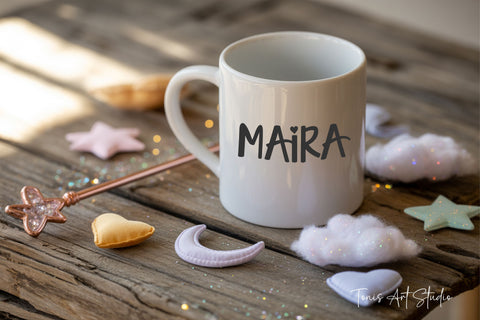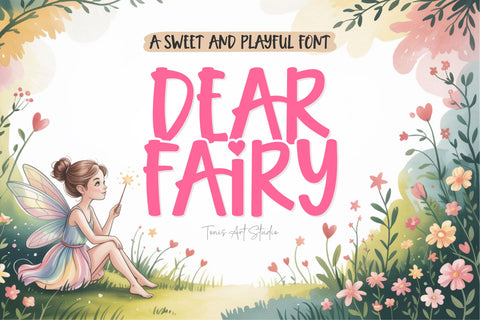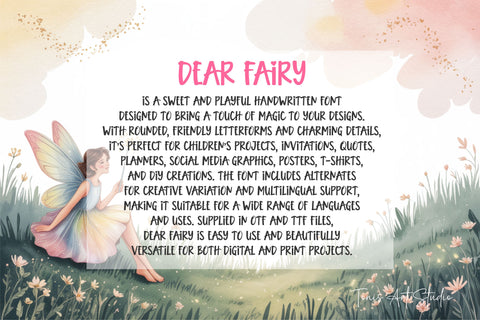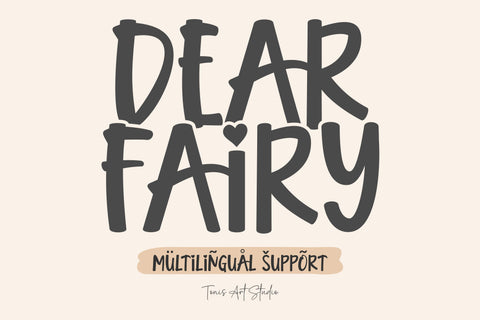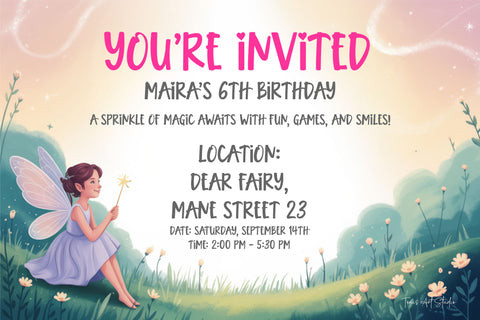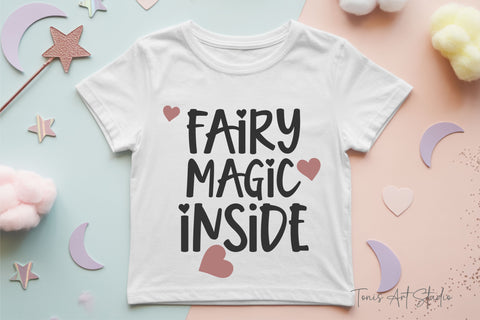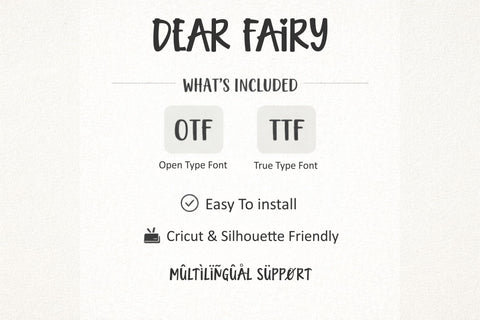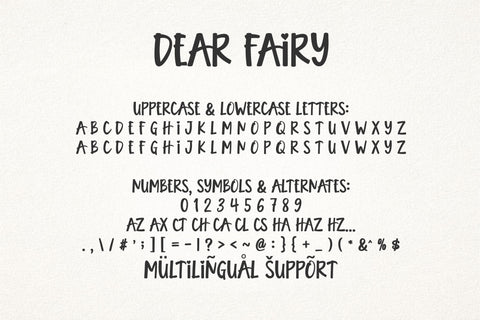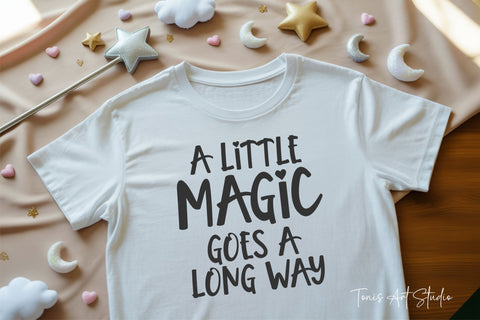
Dear Fairy Font – Cute Kids Font, Cricut Font, Girly Font
Dear Fairy Font is a sweet and playful handwritten font designed to bring a soft touch of magic to your designs. With rounded, friendly letterforms and charming details like tiny hearts, this font feels warm, whimsical, and full of fairy-tale personality.
Perfect for children’s projects, birthday invitations, nursery decor, classroom materials, quotes, planners, stickers, t-shirts, mugs, and creative Cricut or Silhouette crafts, Dear Fairy is made to feel joyful, approachable, and easy to use. Its playful style makes it ideal for girly designs, kids branding, teachers, and magical themes.
The font includes alternates for creative variation and full multilingual support, making it suitable for a wide range of languages and projects. Supplied in OTF and TTF formats, Dear Fairy works beautifully for both digital and print use and installs easily on all major systems.